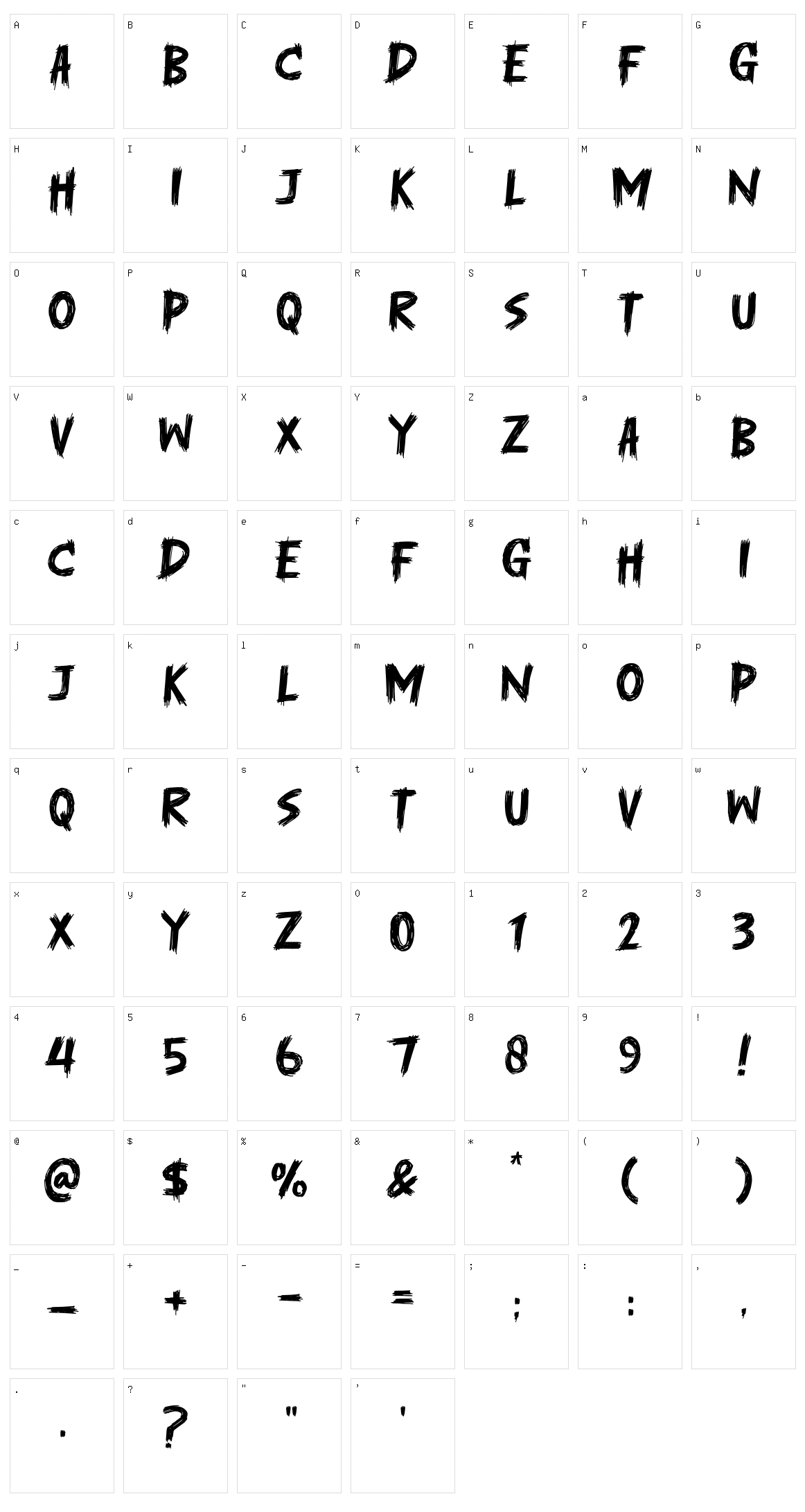
The free font Death Spirit is carefully designed by Khurasan, showcasing a thoughtful balance of creativity and usability and falls under the Horror font style. When you download the ZIP file, it contains only 918.92 KB of font files, making it lightweight and quick to download. Please review the license details below to understand permitted usage and distribution rights. If license information is not available, we recommend using this font for personal projects only or contacting the author directly for commercial usage permissions.